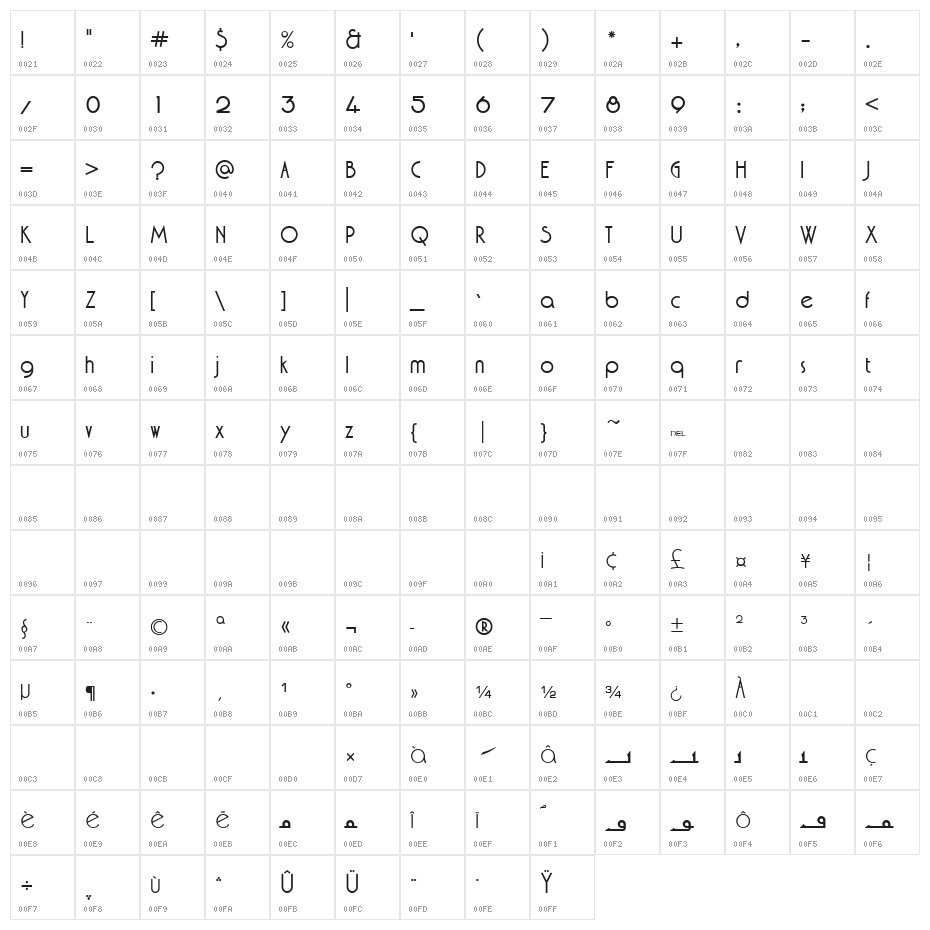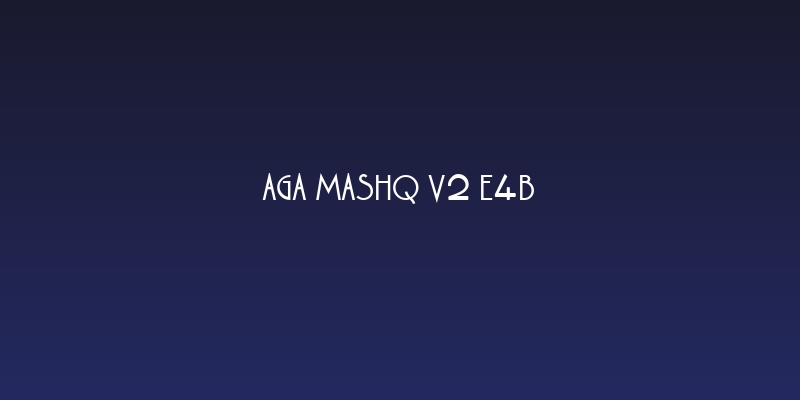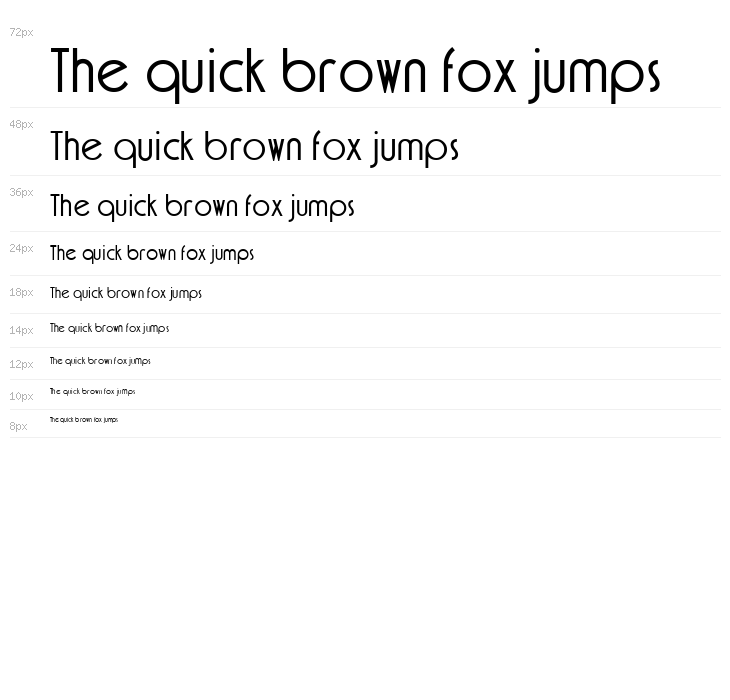
AGA Mashq V2 E4B Font
AGA Mashq V2 E4B Description
This font features a modern and geometric design, characterized by clean lines and a balanced structure. The uppercase letters exhibit a strong presence with their bold and angular forms, while the lowercase letters maintain a harmonious flow with rounded edges. The numerals are distinct and easy to read, complementing the overall aesthetic. Special characters are well-integrated, adding versatility to the font. Its style is both contemporary and timeless, making it suitable for a variety of design applications.
| Use Case | Headlines, Logos, Digital interfaces |
| Proposed Projects | Ideal for branding, editorial design, advertising, and digital interfaces. |